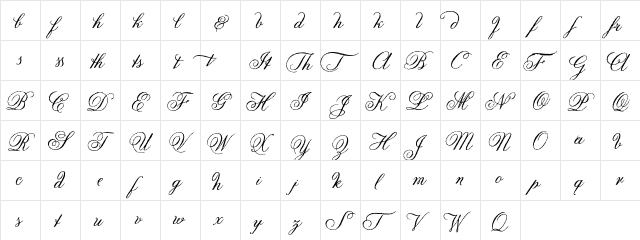
AngliaOldeEnhancements Regular
Design Context for AngliaOldeEnhancements Typeface
AngliaOldeEnhancements is a composed and adaptable typeface that performs quietly and consistently across a wide range of design contexts.